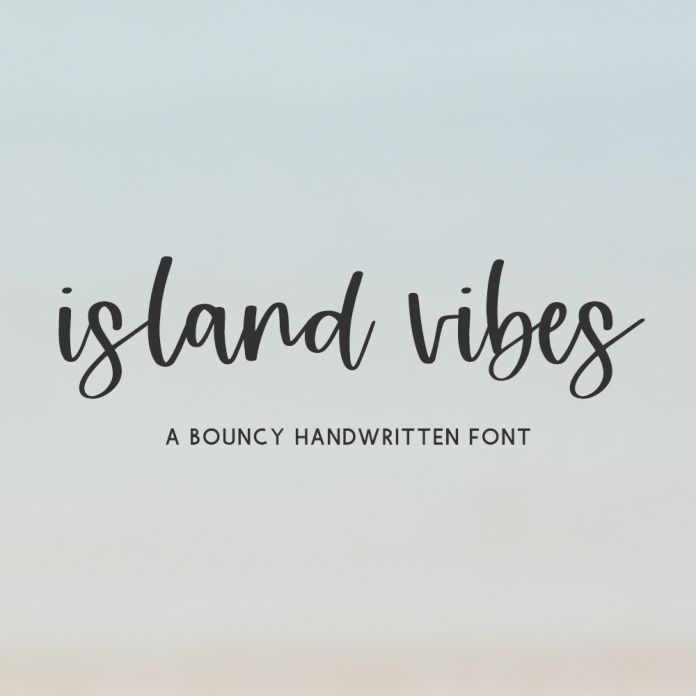
Introducing Island Vibes, a cute modern calligraphy font.
Island Vibes is best for:
- feminine, crafty projects with your Silhouette machine, or your SVG design business